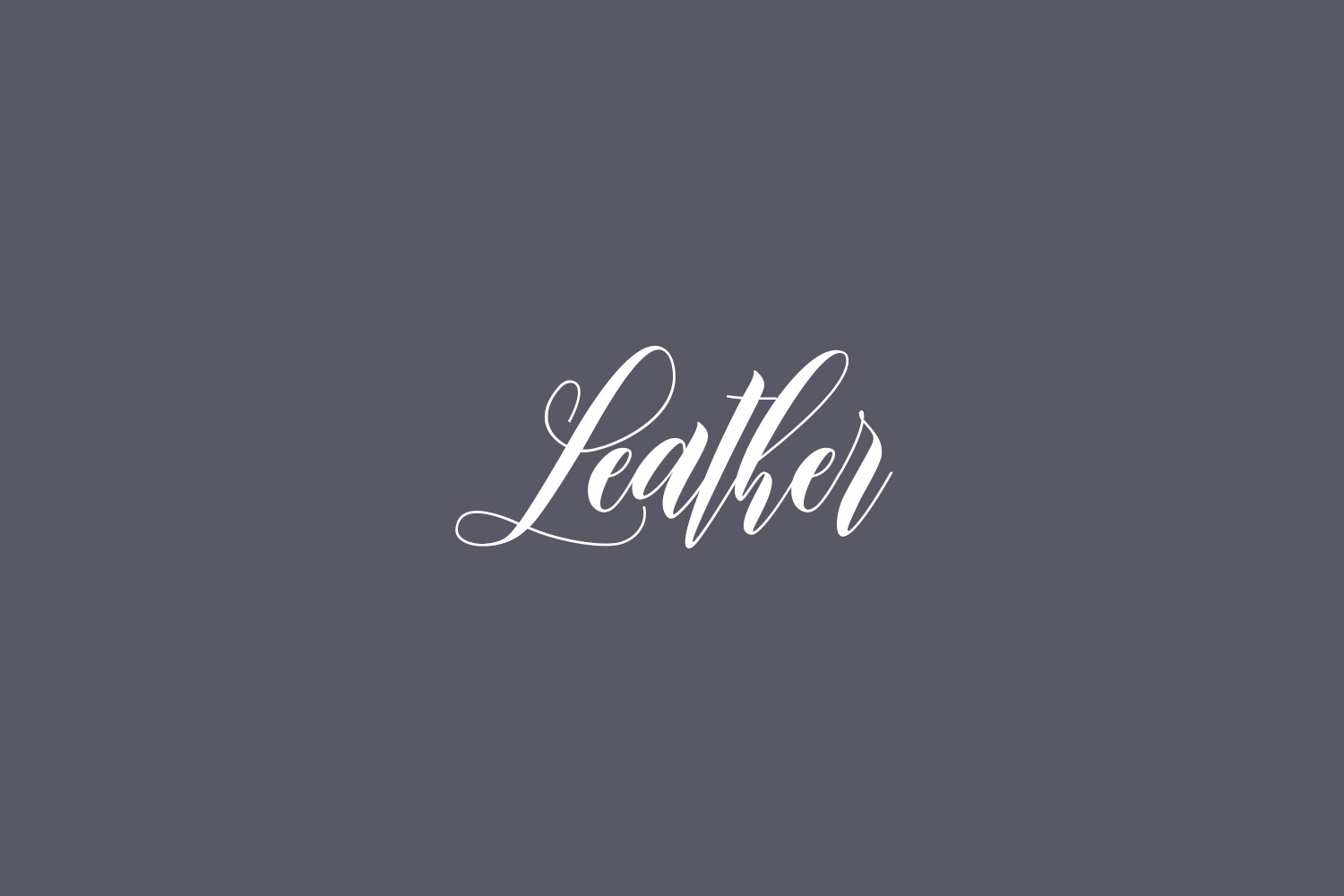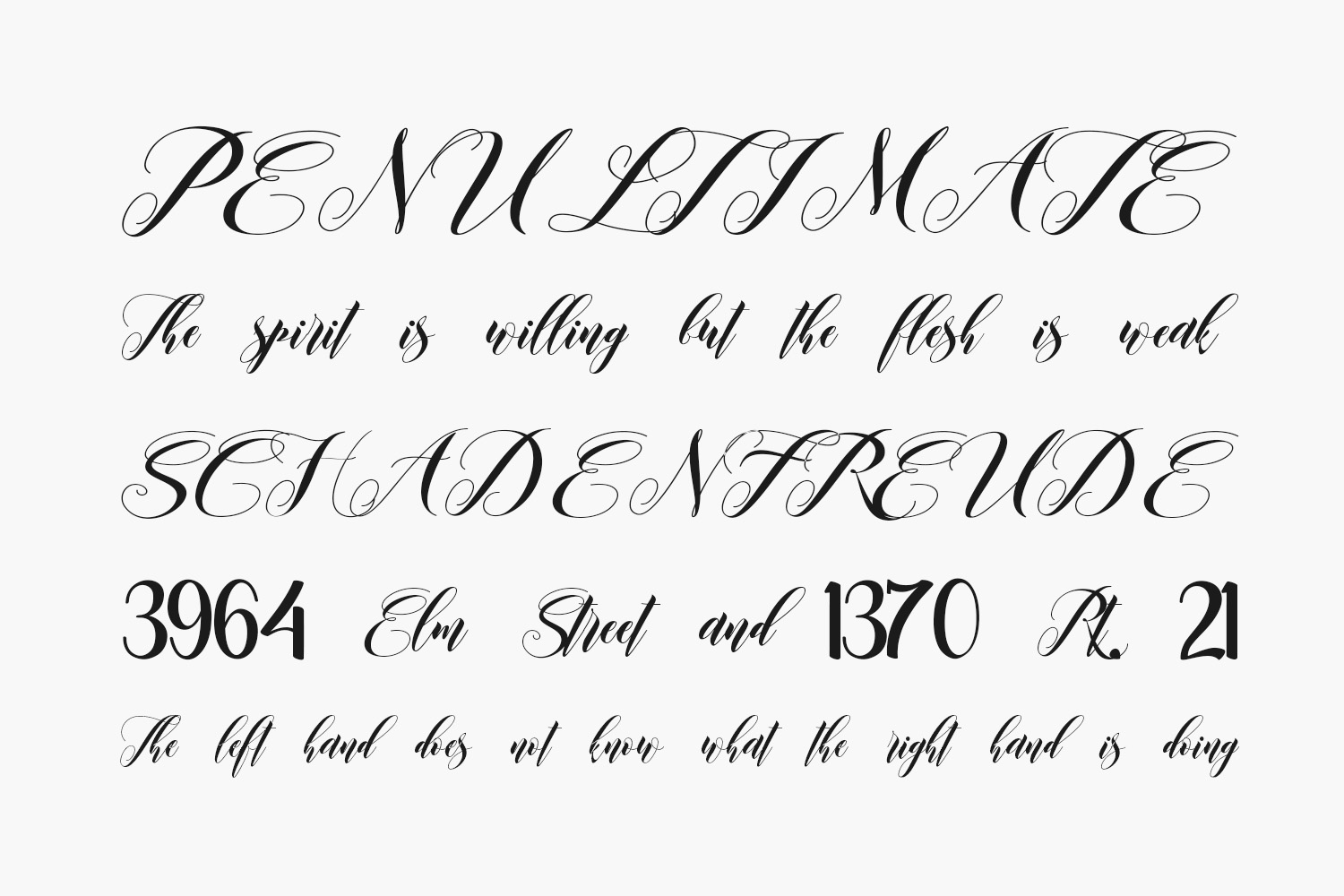
Leather Free Font is a fun, elegant handwritten font that comes with loads of extra characters. Leather Free Font was designed by Muhammad Akbar is a demo and free for personal use only. Please purchase the full version for commercial use.